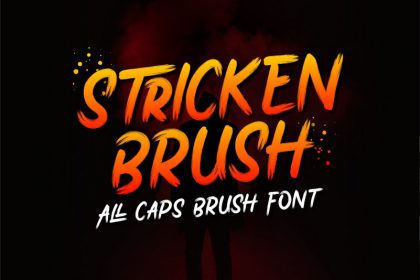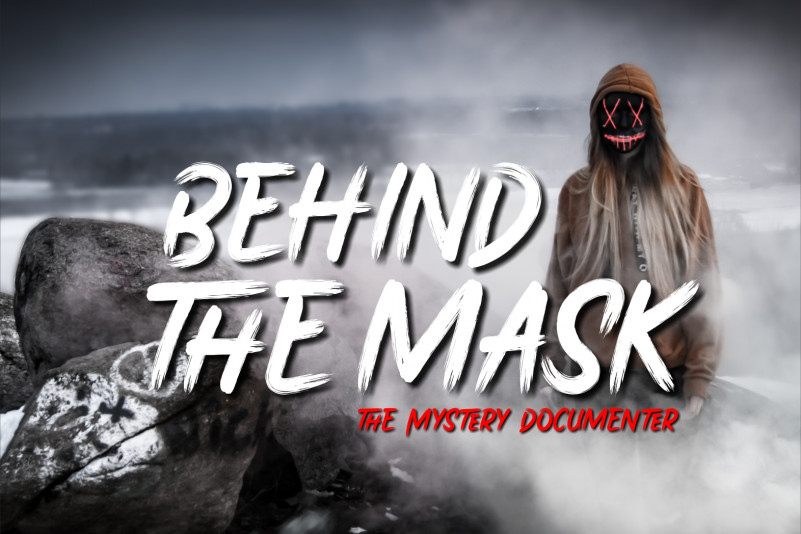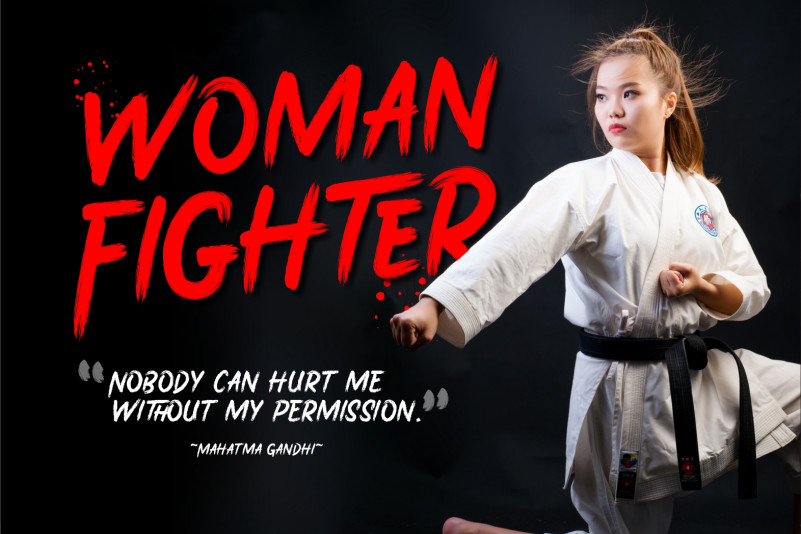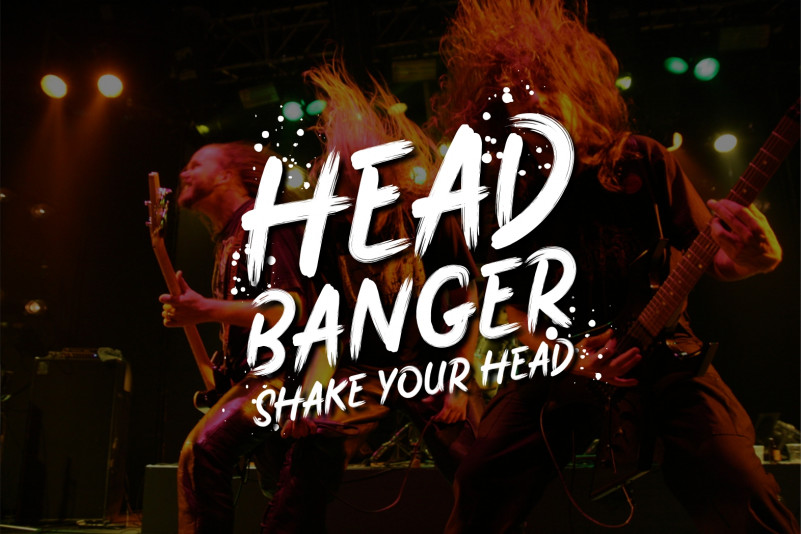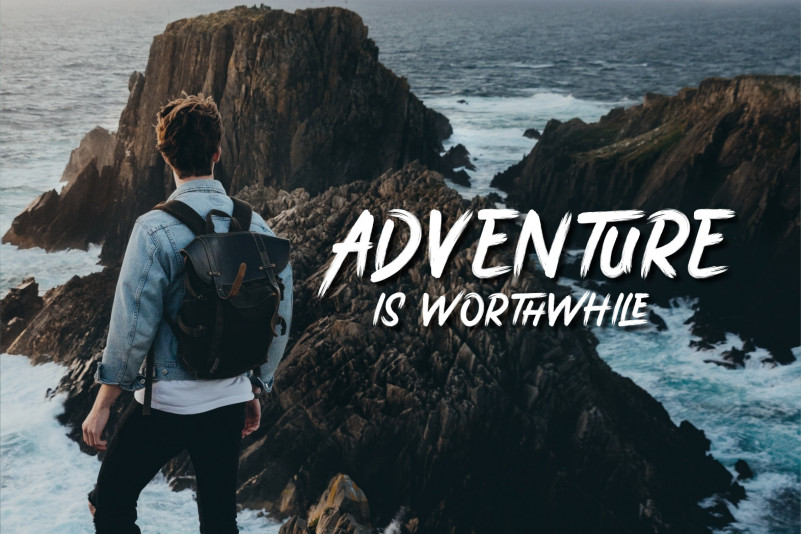
Stricken Brush Font
Stricken Brush Font is a classic and original handwritten font with a light feel. It will add a beautiful spark to any design project!